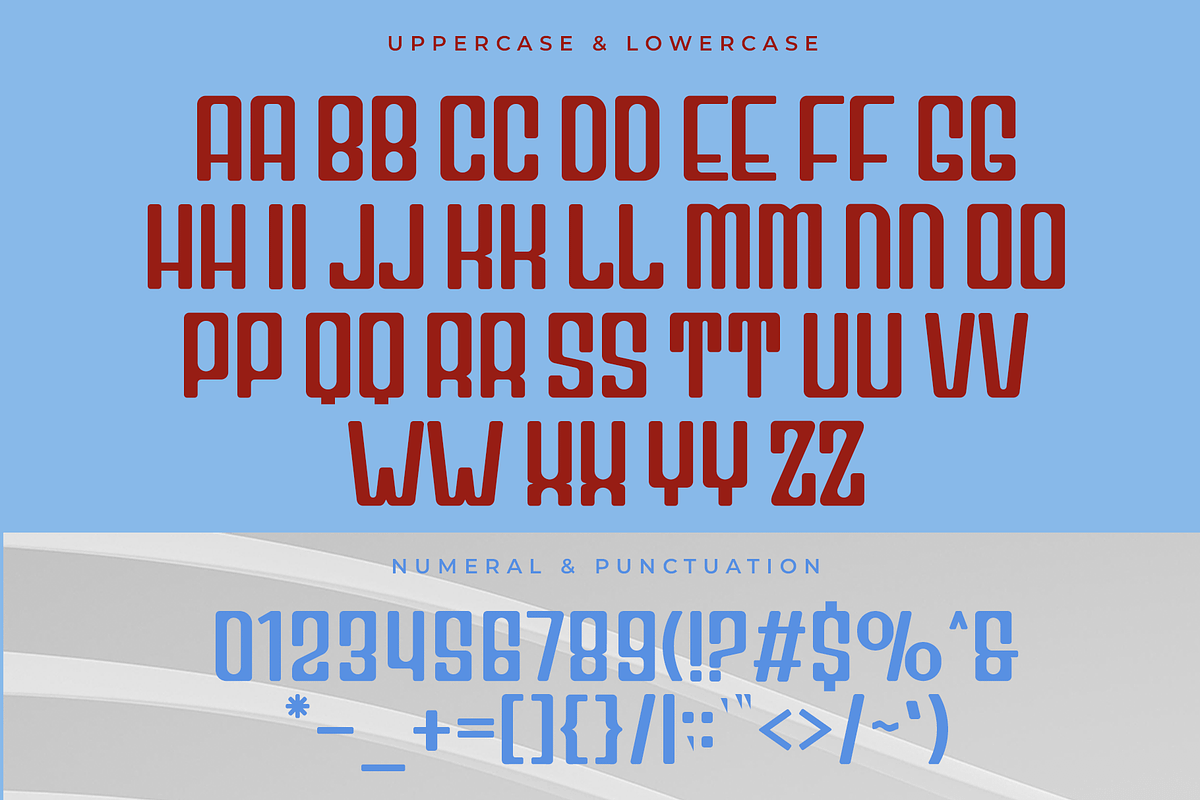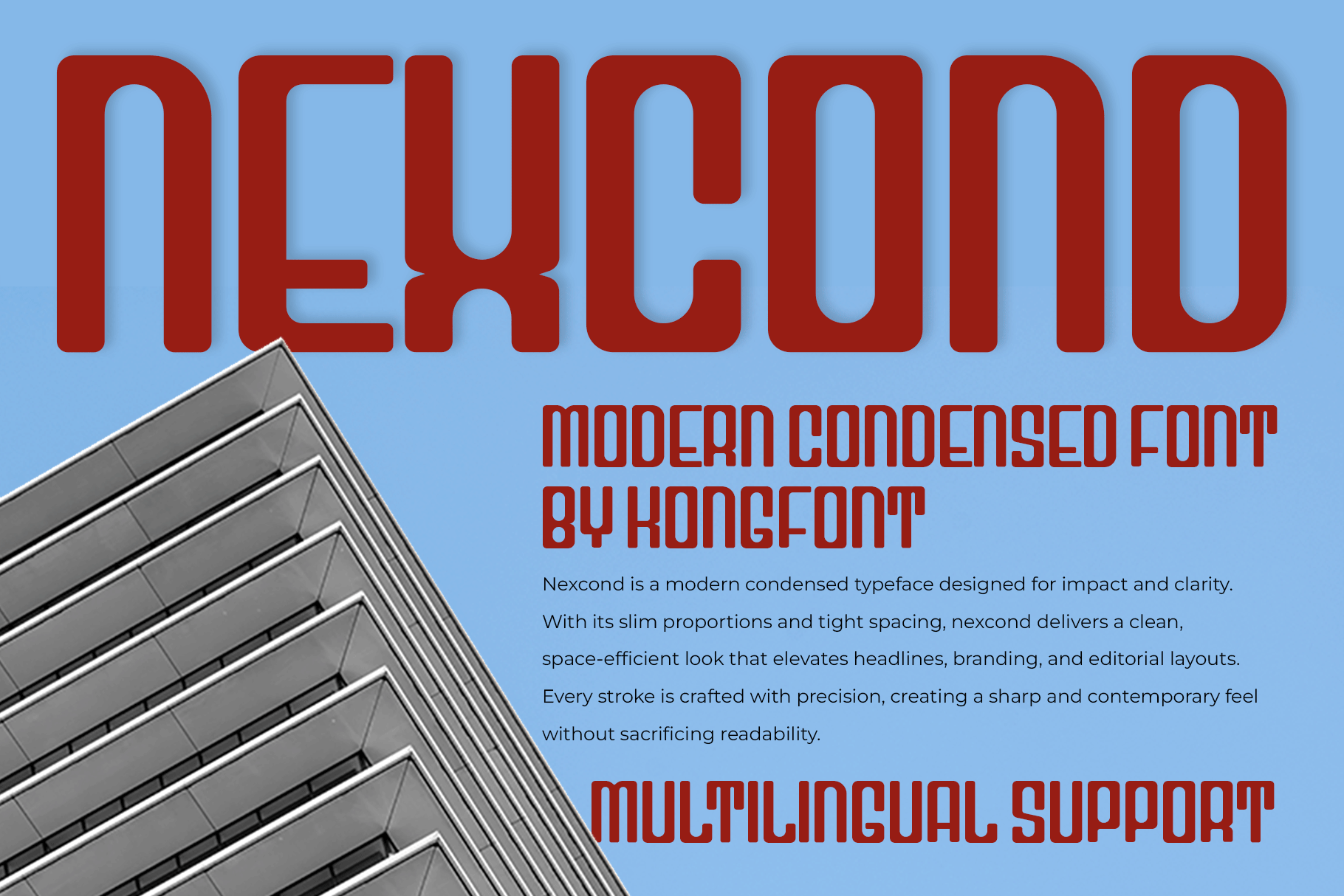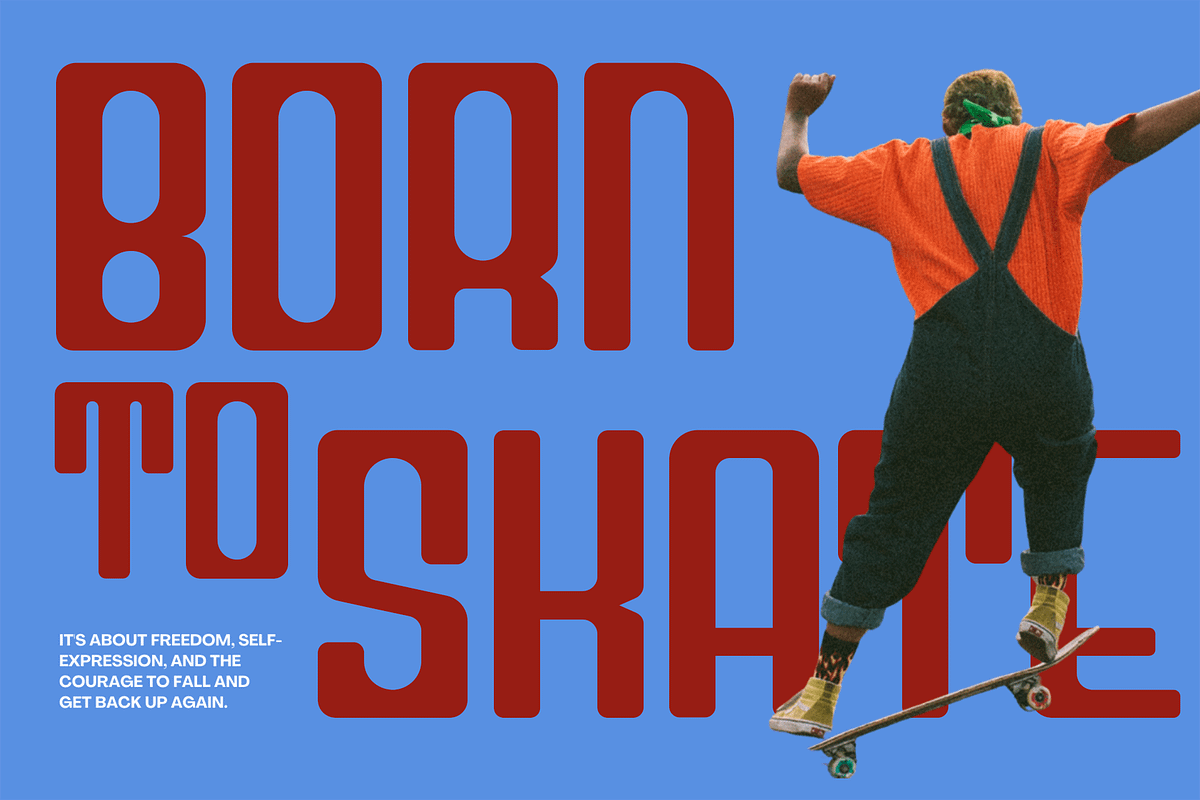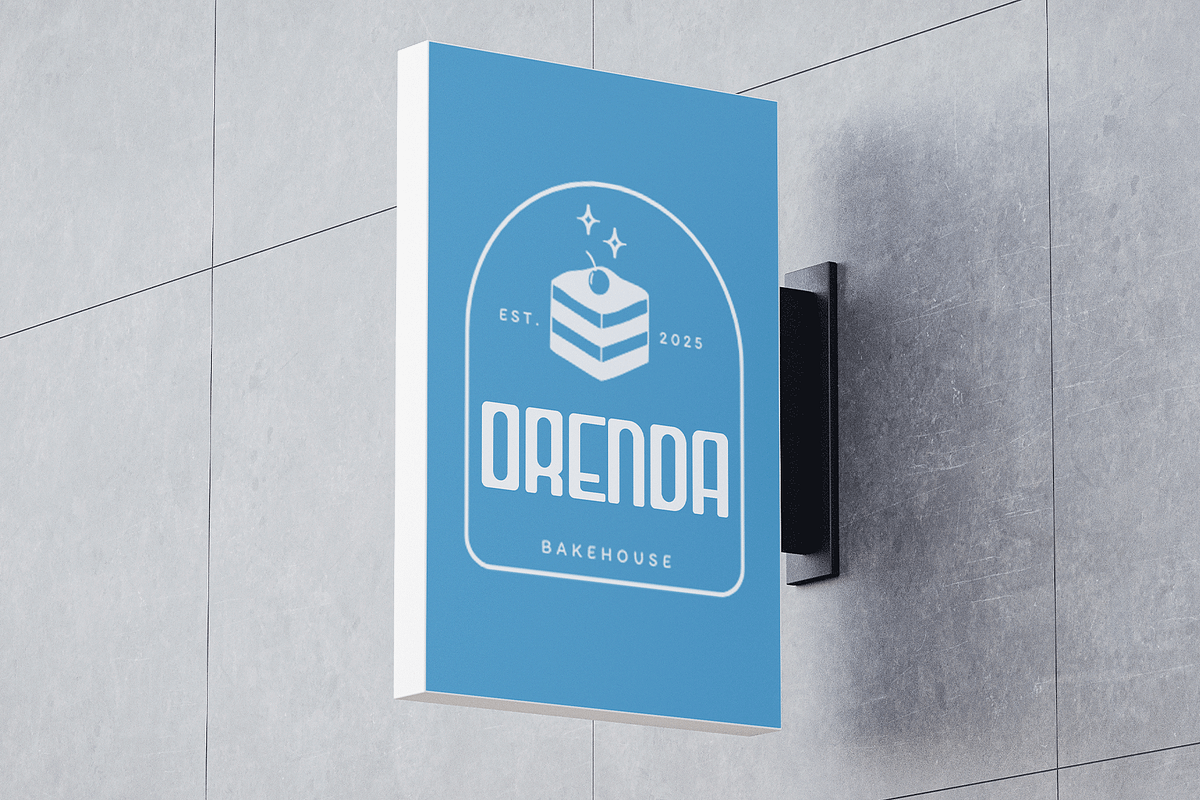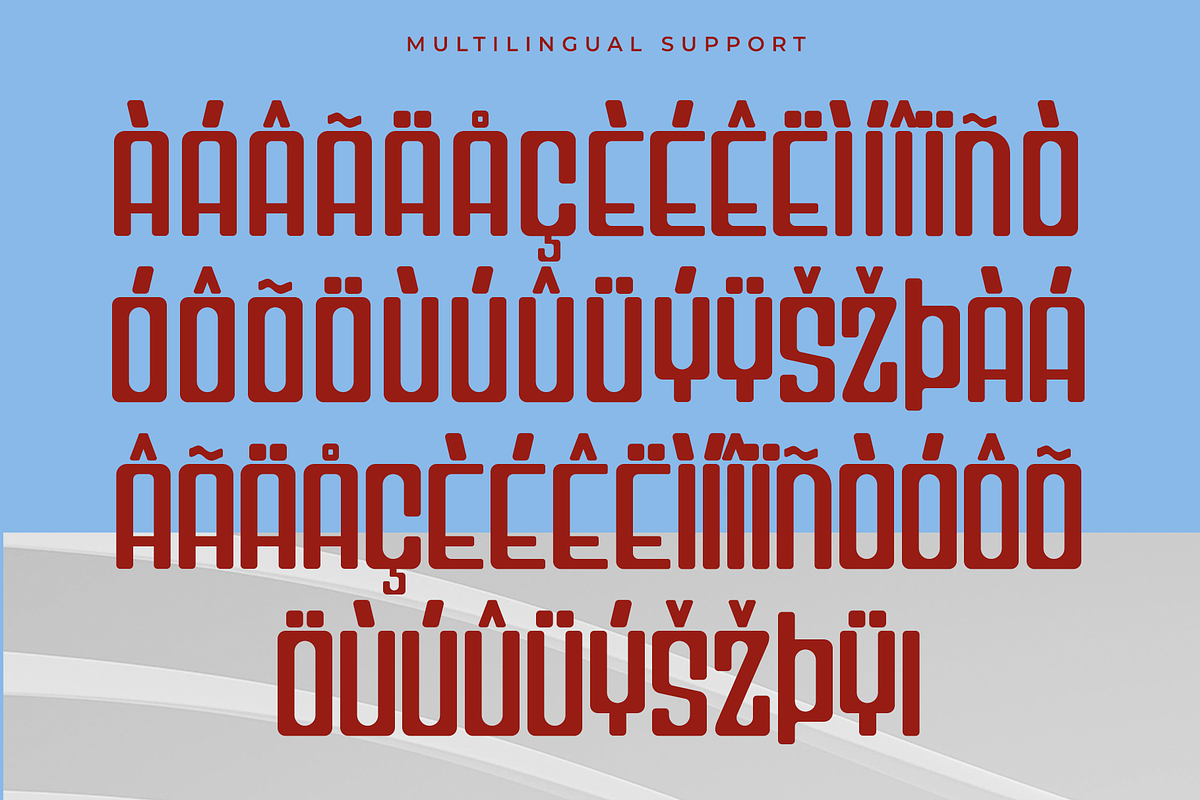
Nexcond - Modern Condensed Font
Introducing Nexcond, a modern condensed font designed to deliver strong visual impact while maintaining clean, minimal elegance. With its narrow structure, sharp edges, and balanced geometry, Nexcond provides a bold and efficient typographic style that maximizes space without sacrificing clarity.
This typeface is perfect for headlines, posters, branding, editorial layouts, sports graphics, packaging, web banners, and any project that requires a striking and compact display font. Nexcond’s streamlined letterforms create a dynamic, contemporary feel ideal for designers seeking a font that combines modern aesthetics with practical efficiency.